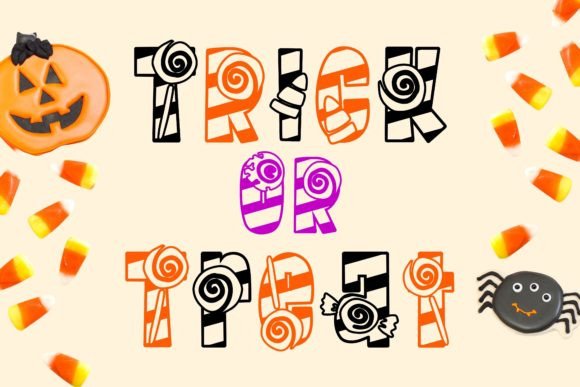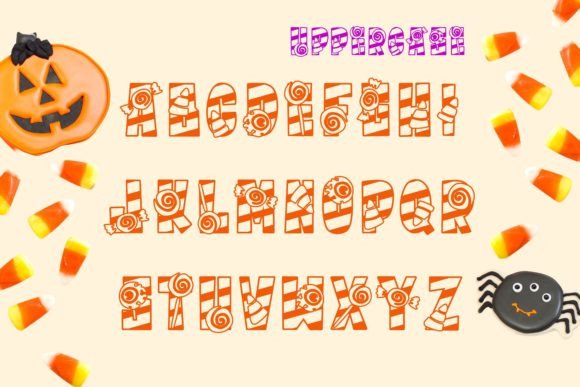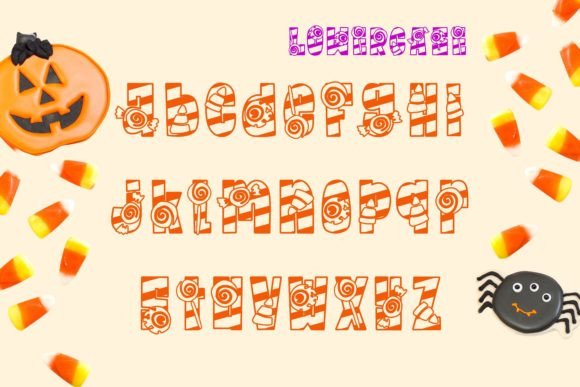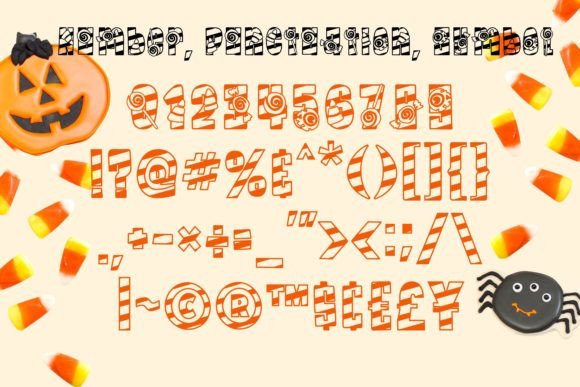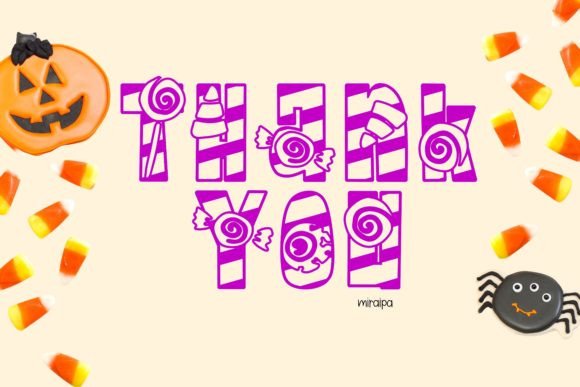
Crazy Candy Font: The Sweetest Addition to Your Design Collection
Are you tired of using the same old fonts in your designs? Do you want to add a touch of fun and playfulness to your projects? Look no further than the Crazy Candy font! This decorative font is designed in a friendly and playful style, making it perfect for celebrations such as Halloween, Christmas, birthdays, or anything kids-related.
What is Crazy Candy Font?
Crazy Candy is a unique and eye-catching font that is sure to bring a smile to anyone’s face. Its playful and whimsical design makes it ideal for use in a variety of projects, from party decorations and invitations to posters, blogs, clothing, and greeting cards. The font’s friendly and approachable style is sure to appeal to designers and crafters who want to add a personal touch to their work.
Perfect for Celebrations and Kids-Related Projects
Crazy Candy font is specifically designed to be perfect for celebrations and kids-related projects. Its fun and playful style makes it ideal for use in:
- Halloween party decorations and invitations
- Christmas cards and gift tags
- Birthday party invitations and decorations
- Kids’ clothing and accessories
- Children’s book titles and illustrations
The Crazy Candy font is incredibly versatile, making it perfect for use in a wide range of projects. Some ideas for using this font include:
- Party decorations: Use the Crazy Candy font to create custom banners, garlands, and other decorations for your next party.
- Social media posts: Add a touch of fun and playfulness to your social media posts with the Crazy Candy font.
- Greeting cards: Use the font to create custom greeting cards for birthdays, holidays, and other special occasions.
- Clothing and accessories: Add the Crazy Candy font to your designs for custom clothing and accessories, such as t-shirts, hats, and tote bags.
- Blog posts: Use the font to add a touch of personality to your blog posts and make them more engaging for your readers.
Why You’ll Love the Crazy Candy Font
There are many reasons why you’ll love the Crazy Candy font. Here are just a few:
- Unique and eye-catching design
- Perfect for celebrations and kids-related projects
- Incredibly versatile and easy to use
- Adds a touch of fun and playfulness to any design
Tips for Using the Crazy Candy Font
Here are a few tips for getting the most out of the Crazy Candy font:
- Use the font in combination with other fonts and graphics to create a unique and eye-catching design.
- Don’t be afraid to get creative and try new things – the Crazy Candy font is perfect for experimenting with different design ideas.
| Font Name | Crazy Candy Font |
| Author | miraipa |